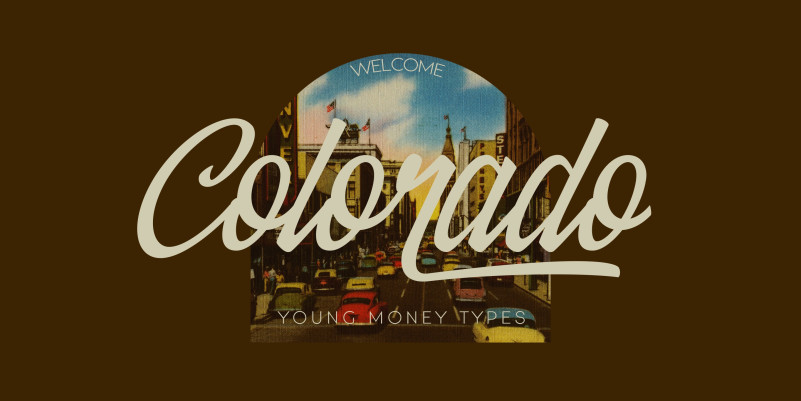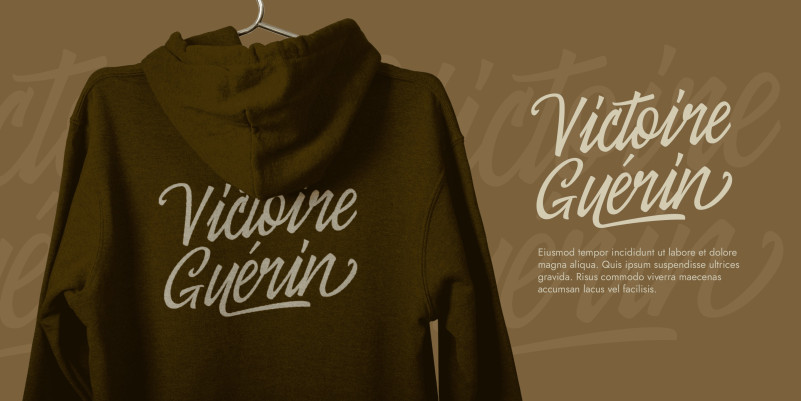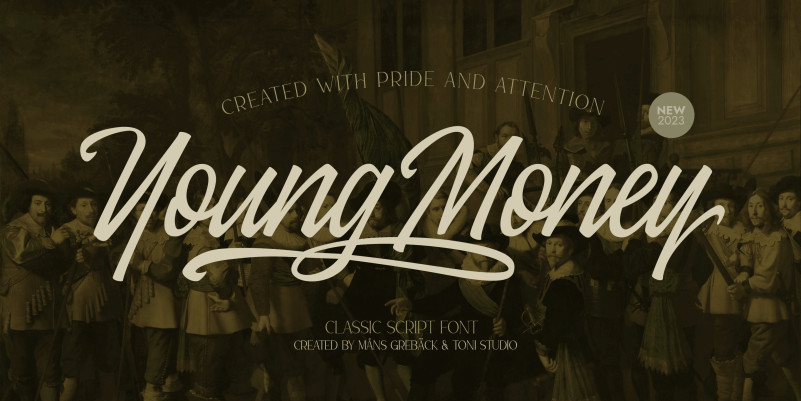
Young Money Font
Young Money Script Font, It can easily be matched to an incredibly large set of projects, so add it to your creative ideas and notice how it makes them stand out!
Use underscore _ after a word to make a swash.
Example: Wild_
Use multiple underscores to make longer swashes.
Example: Bonfires_____
Use # after any letter to make a swash version.
Example: Spring#Zone#